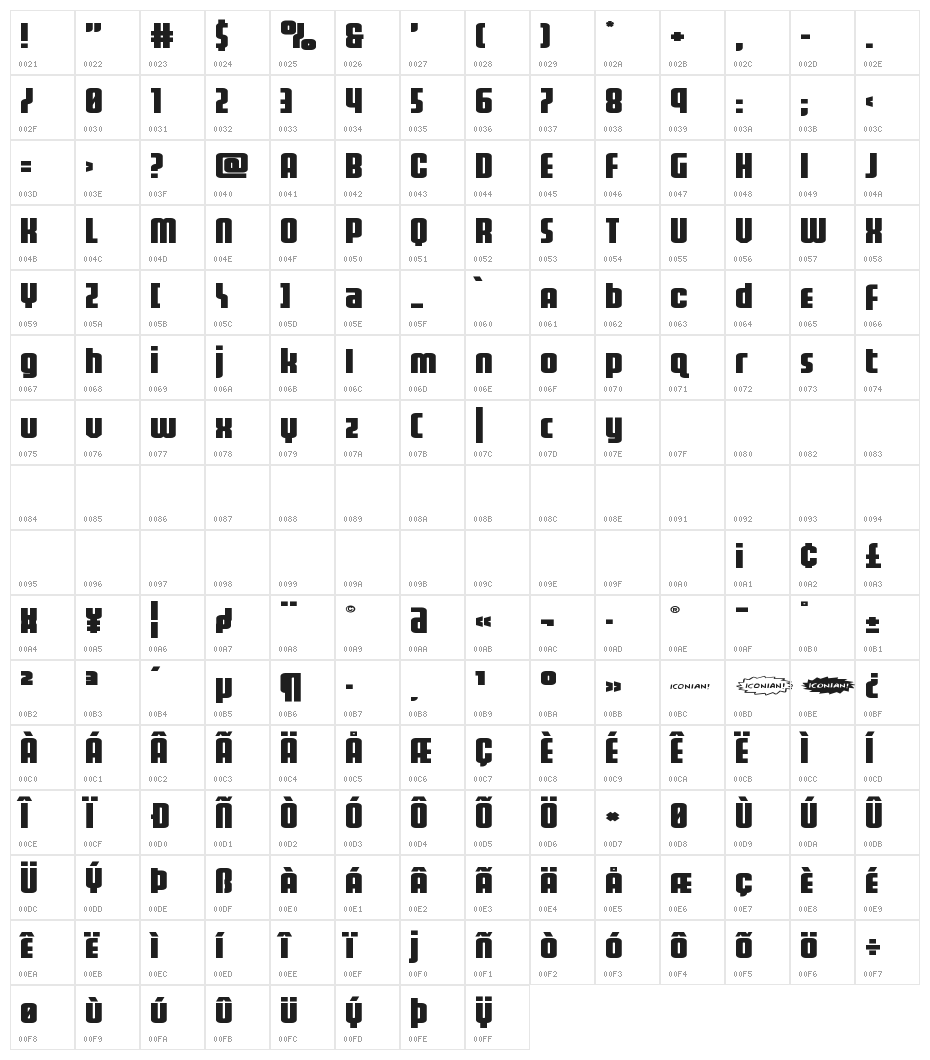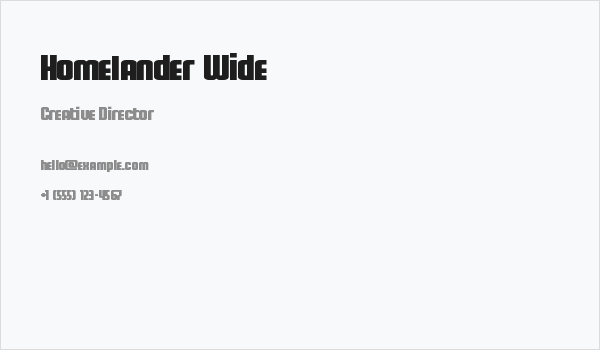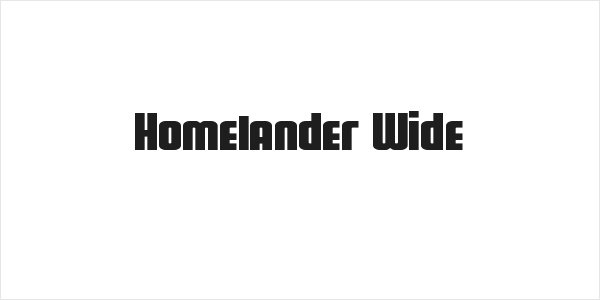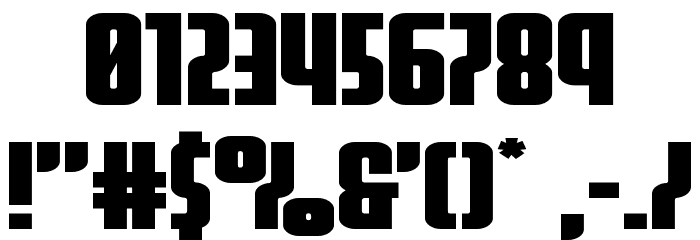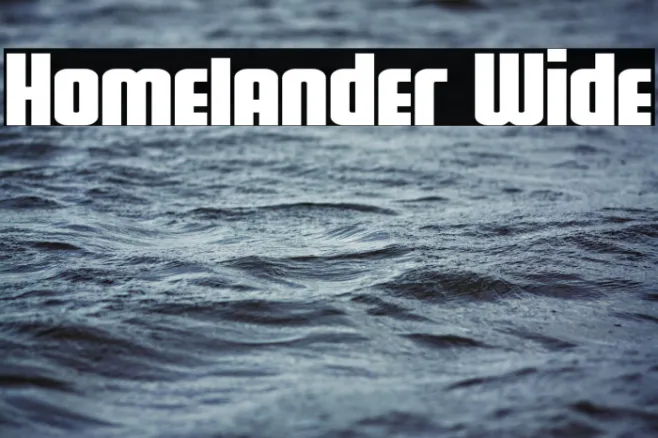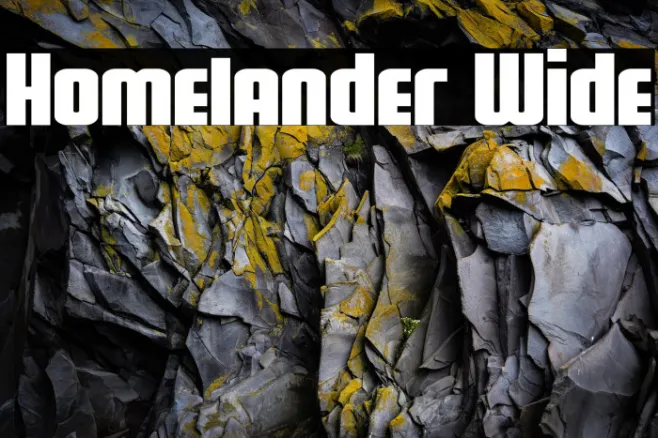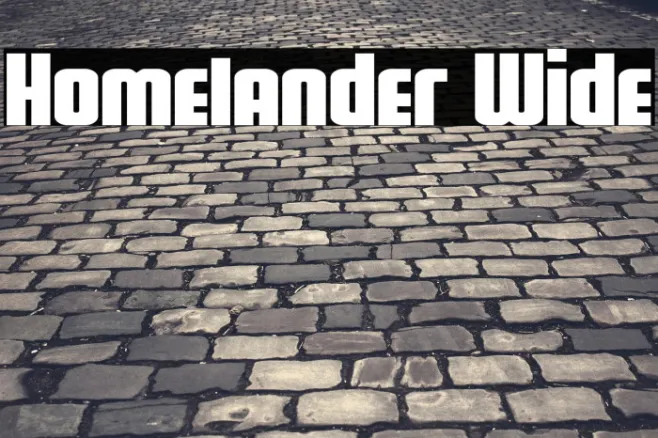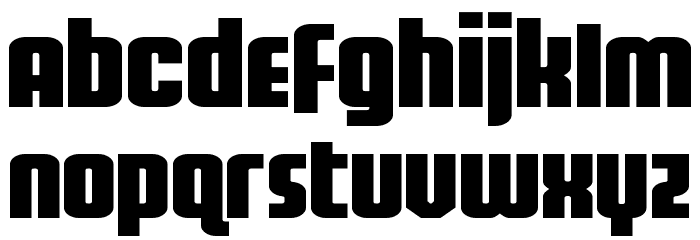
Homelander Wide Font
Homelander Wide Description
This font features a bold, wide design with strong geometric shapes and a modern aesthetic. The characters are uniformly thick, giving a robust and impactful appearance. The uppercase and lowercase letters maintain a consistent width, enhancing readability while providing a distinctive style. The numbers and special characters follow the same bold structure, ensuring a cohesive look across all text elements. This font's design is ideal for making a statement, with its wide stance and clear, legible forms.